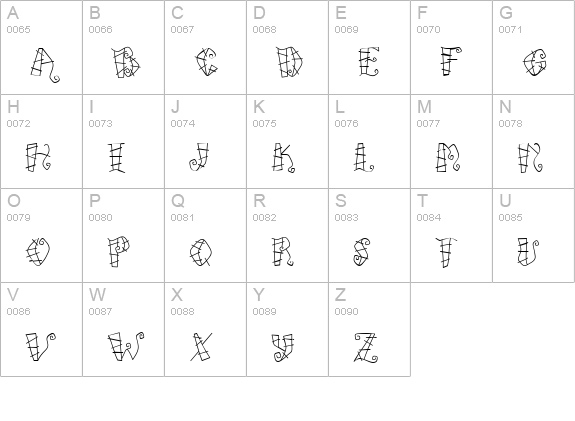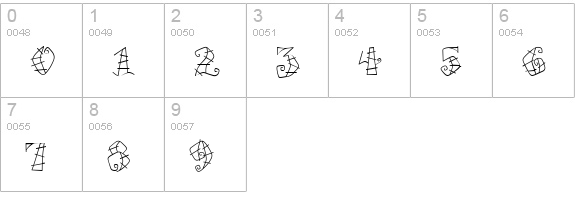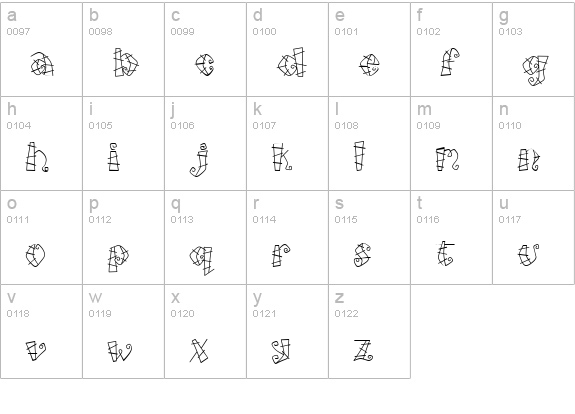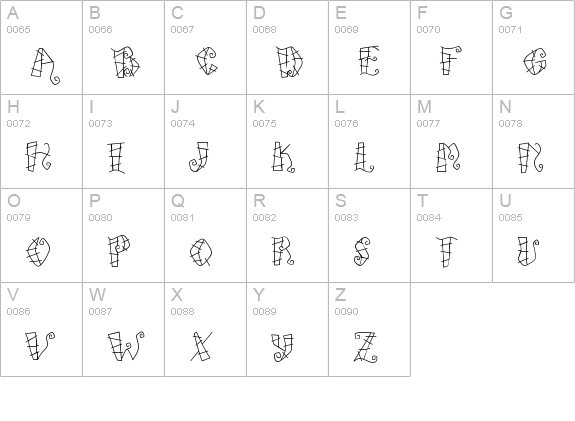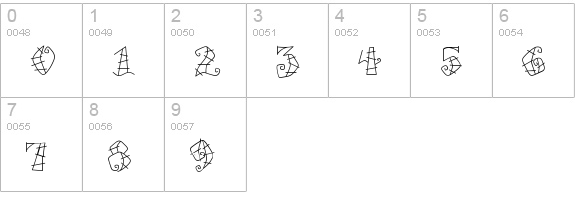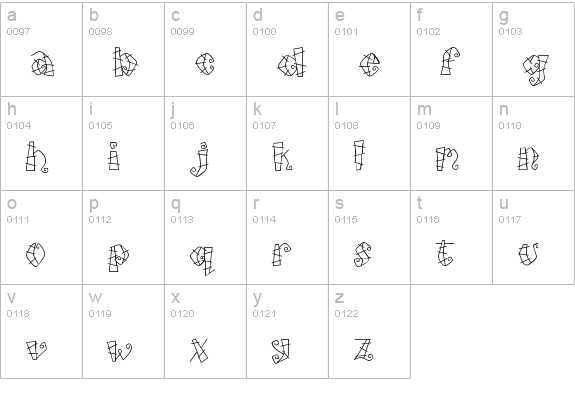
CK Stitches Font Details
Introducing CK Stitches font, a whimsical and charming typeface that will add a touch of handmade warmth to your projects. This delightful font features playful stitches that give a unique and creative look to any design. Perfect for craft projects, invitations, greeting cards, and more, CK Stitches font exudes a cozy and welcoming feel. The best part? CK Stitches font is completely free to download at FontsMarket.com! Embrace the fun and creativity of this font in your next project and let your designs stand out with its distinctive charm. Add a touch of handmade flair with CK Stitches font and watch your creations come to life with its playful and endearing style. Download it now and let your imagination run wild!